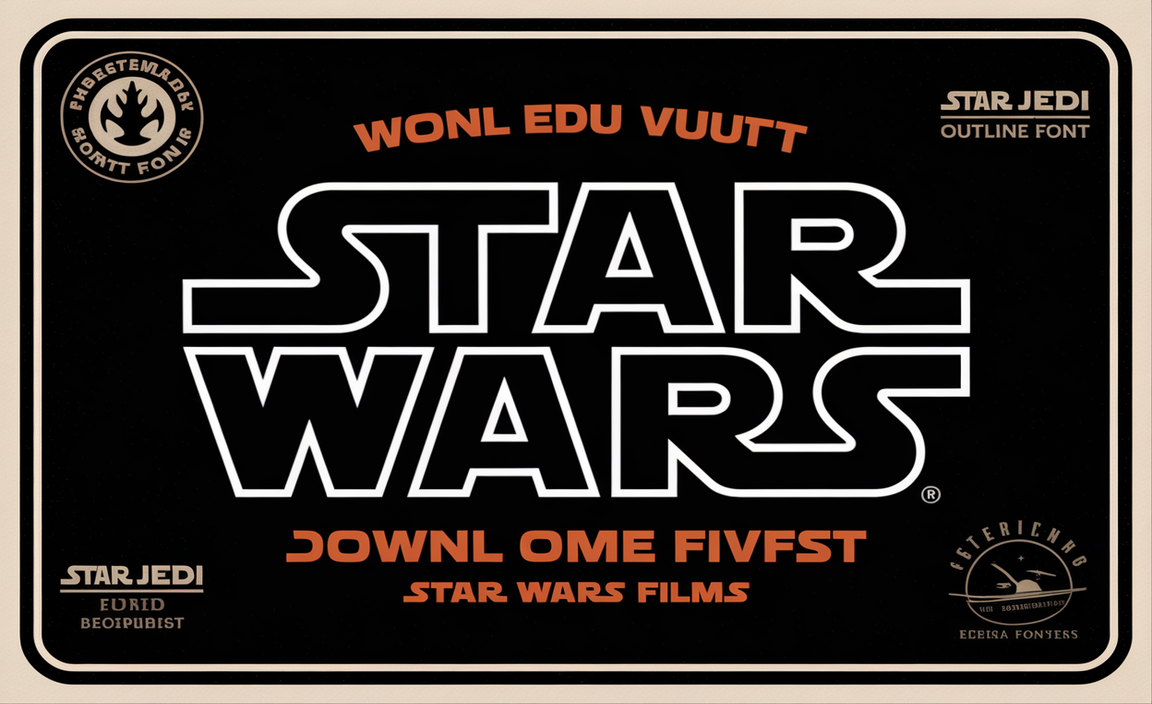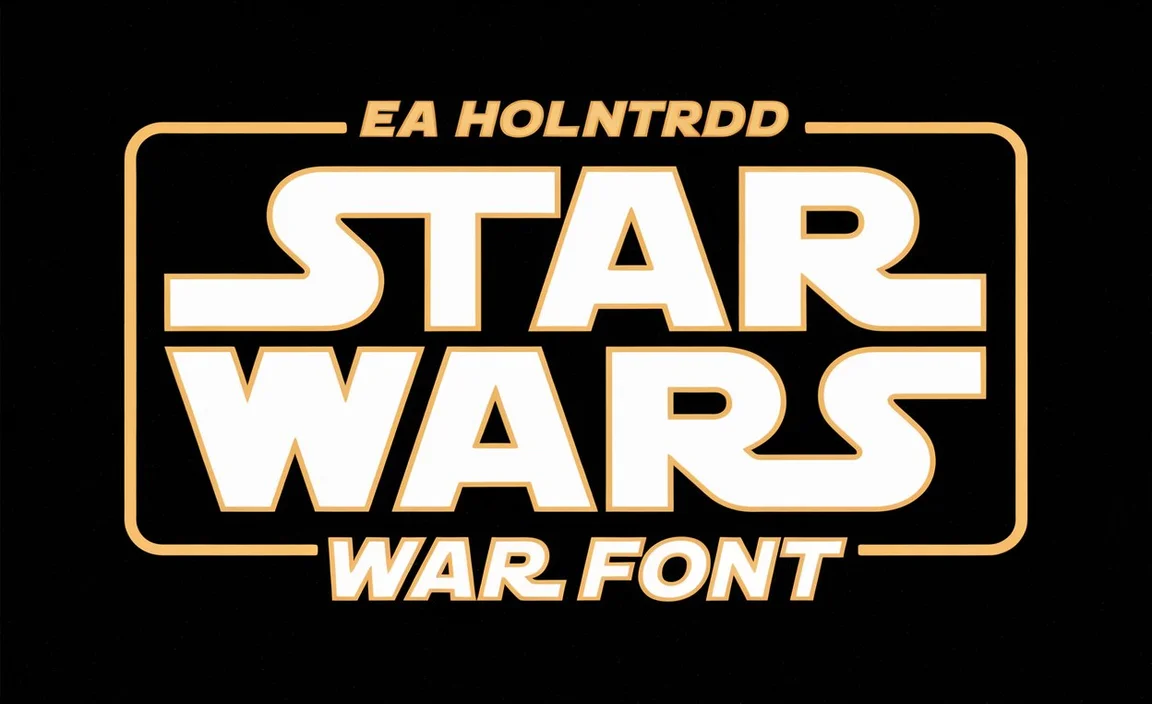
If you love Star Wars and want to use its iconic typography in your designs, the right font can make a big difference. A Star Wars font can enhance your project, whether creating a logo, working on a fan-made design, or searching for a script font inspired by the franchise. Luckily, there are plenty of free options to explore.
Star Wars Font
The Star Wars franchise has influenced typography for decades. The original Star Wars logo font features bold, sharp uppercase letters with a futuristic yet vintage touch. Over the years, many designers have created similar fonts that capture the essence of the films, from serif fonts to decorative fonts like Star Jedi and Boba Fonts.
1. Star Jedi Font – One of the most popular fonts resembling the Star Wars logo.
2. Star Jedi Outline Font – A variation with an outlined design for a unique effect.
3. SF Distant Galaxy – A classic font inspired by the title design of the Star Wars film.
4. Star Jedi Special Edition – A refined version perfect for display fonts.
5. Star Jedi Logo Font – Closely matches the Star Wars logo font style.
6. Mandalorian Font – Inspired by the Disney font used in The Mandalorian series.
7. ITC Serif Gothic – A gothic font similar to what is seen in the Empire Strikes designs.
8. Helvetica Black – A modern font that works well with Star Wars-inspired typography.
Tips for Using Star Wars Fonts Effectively
• Choose the Right Font Family – Some fonts work better for logos, while others are suited for text.
• Combine Fonts Creatively – Mixing a serif font with a sans serif font can create a balanced design.
• Use Condensed Fonts for Impact – Condensed fonts work well for dramatic titles like in the Empire Strikes Back posters.
• Experiment with Brush Fonts – A brush font can give a hand-drawn, artistic look.
• Consider Blackletter Fonts – These gothic fonts add a medieval touch to Star Wars-inspired designs.
What Is The Closest Free Font To The Star Wars Logo?
The Star Jedi font is the closest match to the original Star Wars logo.
What Font Is Used In The Star Wars Movie Crawl?
The opening crawl uses a version of the ITC Serif Gothic font.
Are There Script Fonts That Resemble Star Wars Designs?
Yes, there are script fonts available that have a futuristic or handwritten style.
What Are Some Modern Fonts Inspired By Star Wars?
Modern fonts like Helvetica Black and SF Distant Galaxy offer a sleek Star Wars look.